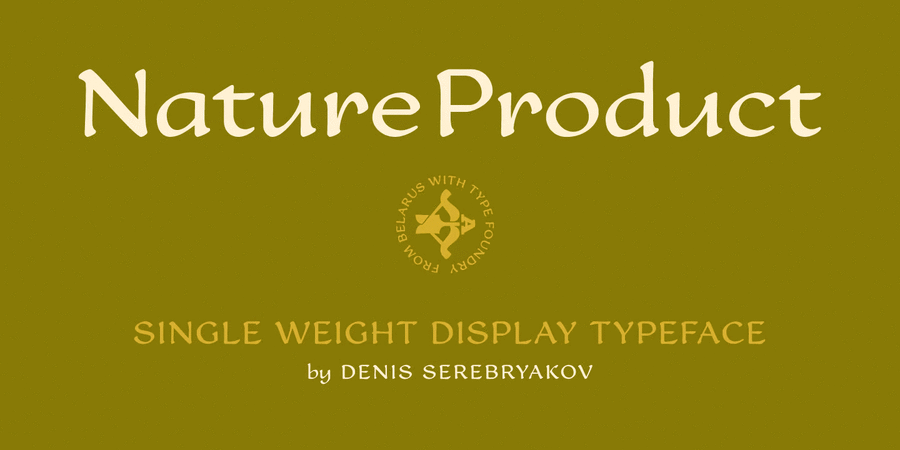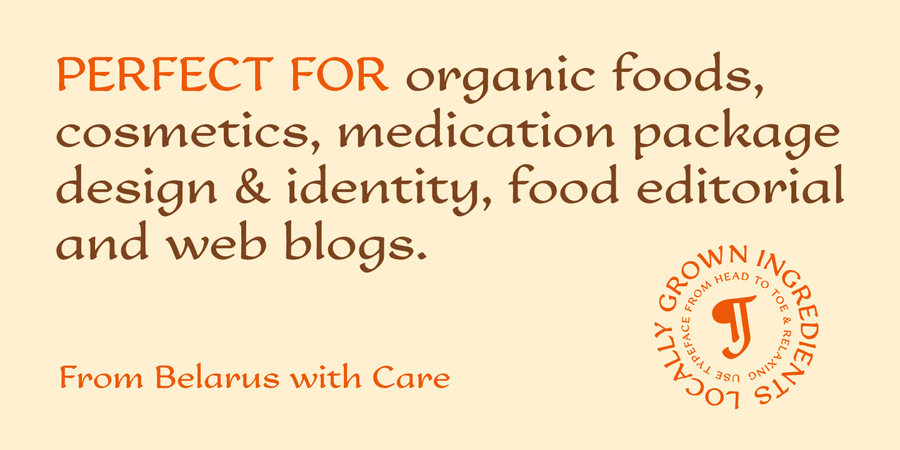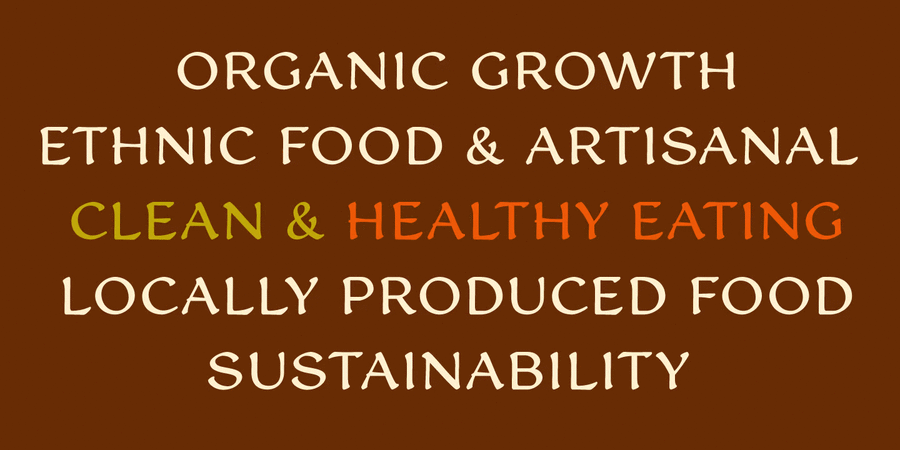
About Nature Product it's a single weight display font with ideology of healthy lifestyle and nutrition. Pure curves based on calligraphy method. Font perfect for use in organic foods, cosmetics, medication package design & corporate identity projects, food editorial prints and web blogs. Enjoy! The typeface was designed by Denis Serebryakov in 2016.
Associations for font family Nature ProductTypeface personality and character:
pleasant, cozy, comfortable, friendly, kind, polite, calm, traditional, cultured, educated, orderly, optimistic, Soft, leisurely, juicy, home, organic, delicious, fresh, confidence, natural, peaceful, archaic, ancient, tribal, beautiful, fairy, historical, masterful, artistic, noble, expressive, distinctive, musical, creative, nice, fantastic, classic, humanitarian, dynamic, harmonious, healthy, generous, benevolent, good-natured, Artisanal, craft brewed, summer, forest, earthen